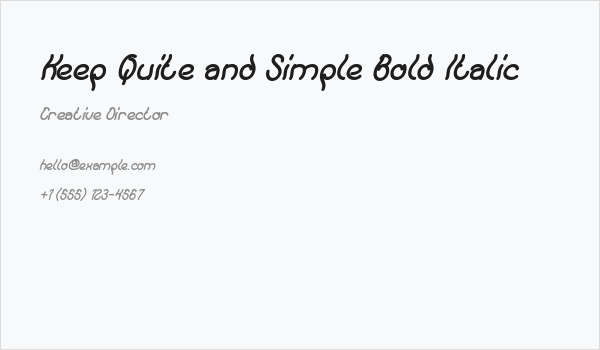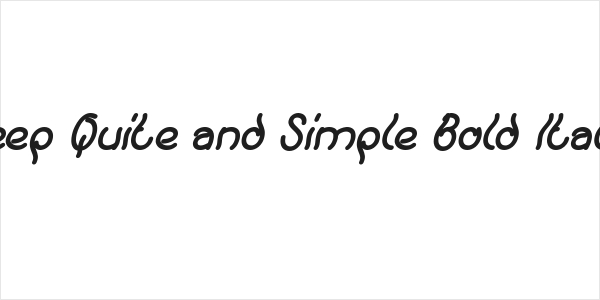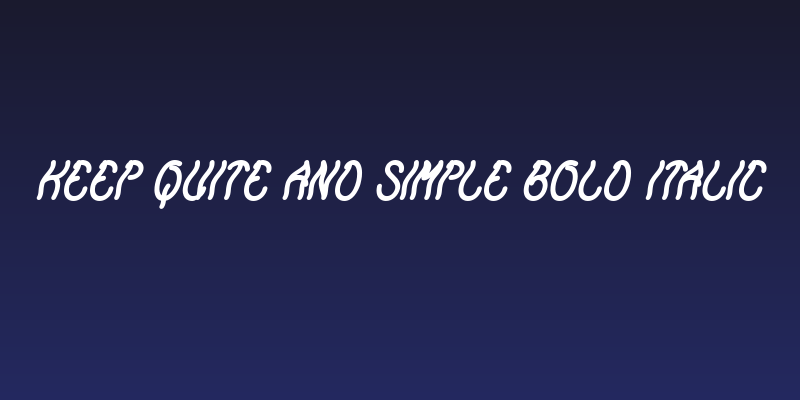
Keep Quite and Simple Bold Italic Font
Keep Quite and Simple Bold Italic Description
This font exhibits a playful and dynamic style with a bold and italicized appearance. The characters are rounded and slightly slanted, giving a sense of movement and energy. The strokes are thick and consistent, providing a strong visual impact. The uppercase and lowercase letters maintain a cohesive look, with smooth curves and a handwritten feel. Numbers and special characters are designed to match the overall style, ensuring uniformity across all elements. The font's unique character makes it suitable for projects that require a lively and informal touch.
| Proposed Projects | Ideal for children's books, playful branding, greeting cards, and informal invitations. |